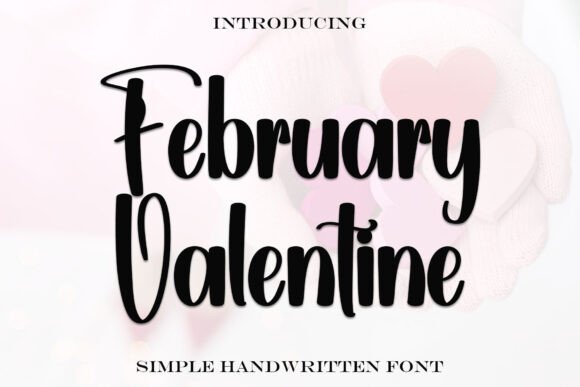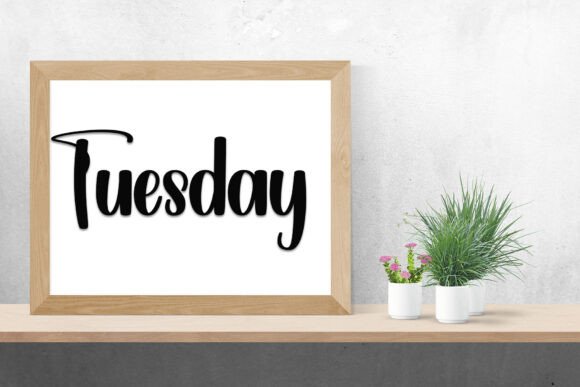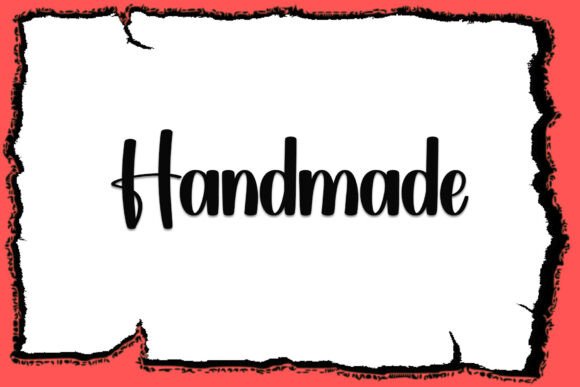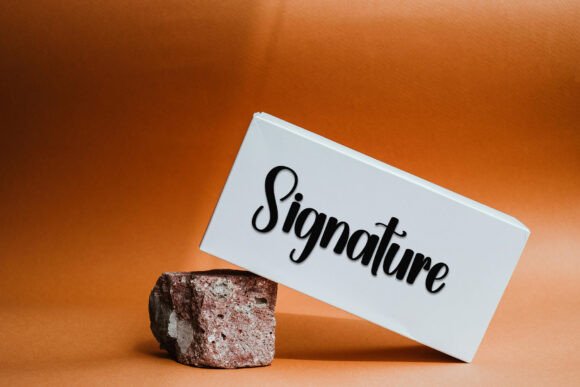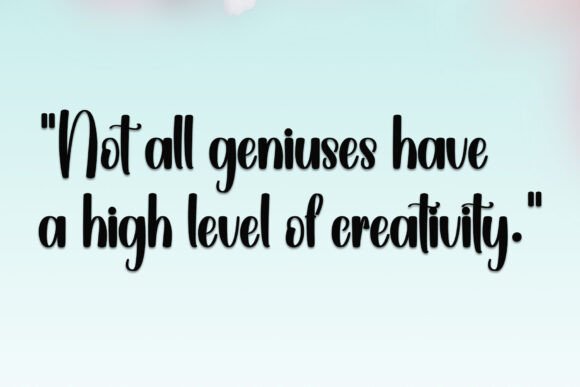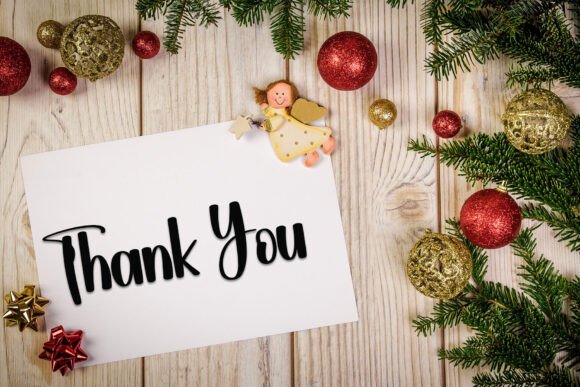
Love is in the Air: Introducing the February Valentine Font
As a designer, you know that sometimes the perfect font can make all the difference in bringing your vision to life. You’re brainstorming ideas for a special project, and suddenly, you stumble upon the perfect inspiration – a beautiful, handwritten font that exudes elegance and sophistication. That’s exactly what the February Valentine Font is all about.
This trendy handwritten font boasts a contemporary atmosphere and impeccable form, inspired by timeless classic calligraphy. Whether you’re working on a Valentine’s Day project or a wedding invitation, the February Valentine Font is sure to add a touch of class and whimsy to your design. For designers, it’s a valuable addition to any font collection, offering endless possibilities for creative expression.
February Valentine Font Key Features
- Unique Characteristics: This font features elegant, cursive script with intricate flourishes, making it perfect for romantic and whimsical designs.
- Font Style: February Valentine Font is a script font, ideal for use in invitations, greeting cards, and other special occasion designs.
Designer Review: February Valentine Font
Overall, I think the February Valentine Font is a charming and whimsical font that’s perfect for adding a touch of romance to your designs. ✨
- Unique character set: The font has a distinctive set of characters that are sure to add a personal touch to your designs.
- Playful feel: The February Valentine Font is perfect for designs that need a lighthearted and carefree vibe.
- Beautiful ligatures: The font’s ligatures are beautifully designed and add to the overall charm of the font.
- Limited font sizes: The font may not be suitable for use at larger font sizes, as it can become a bit too ornate and difficult to read.
- Lack of bold weights: The font only comes in a regular weight, which may limit its use in certain design applications.
- Not suitable for body text: The font’s ornate design makes it more suitable for use in titles and headlines rather than body text.
- Not ideal for digital use: The font may not display as well in digital formats, such as on screens or in mobile devices.
Overall, I would recommend the February Valentine Font for designs that require a playful and romantic touch. However, it’s essential to consider its limitations and use it in the right context.
To get the most out of the February Valentine Font, use it to create romantic and whimsical designs for Valentine’s Day, weddings, or other special occasions. Experiment with different font sizes, colors, and combinations to add a touch of elegance and sophistication to your designs.
The February Valentine Font is perfect for creating:
- Valentine’s Day cards and invitations
- Love-themed social media graphics
- Special occasion decorations and signage